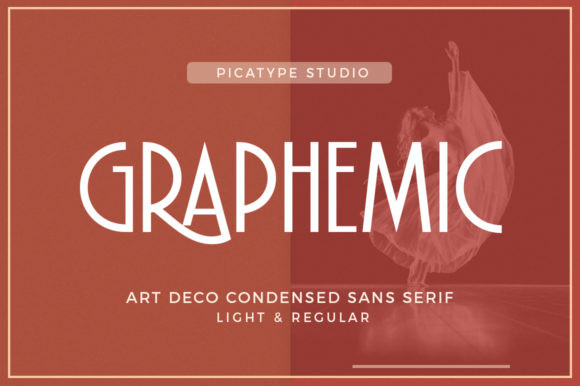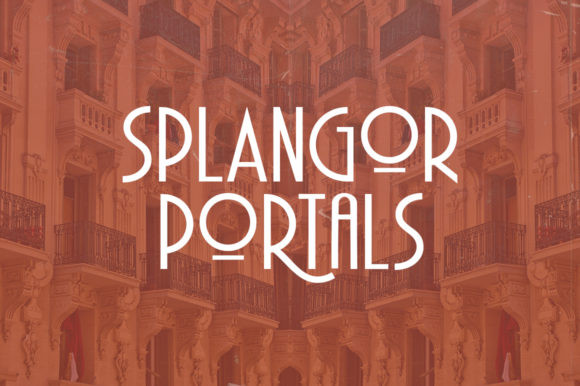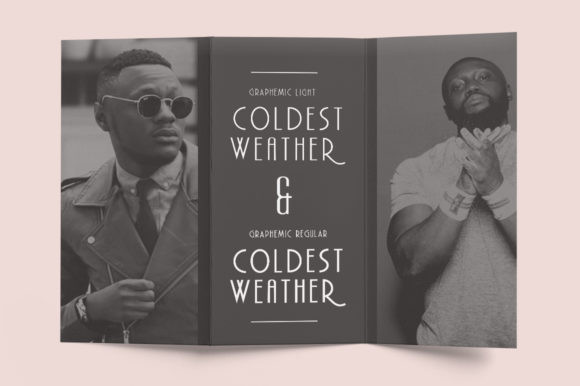
Graphemic Font
Graphemic is a modern display font. This versatile font has a wide range of applications ranging from headlines to branding and is guaranteed to add a delicate touch to your next design.